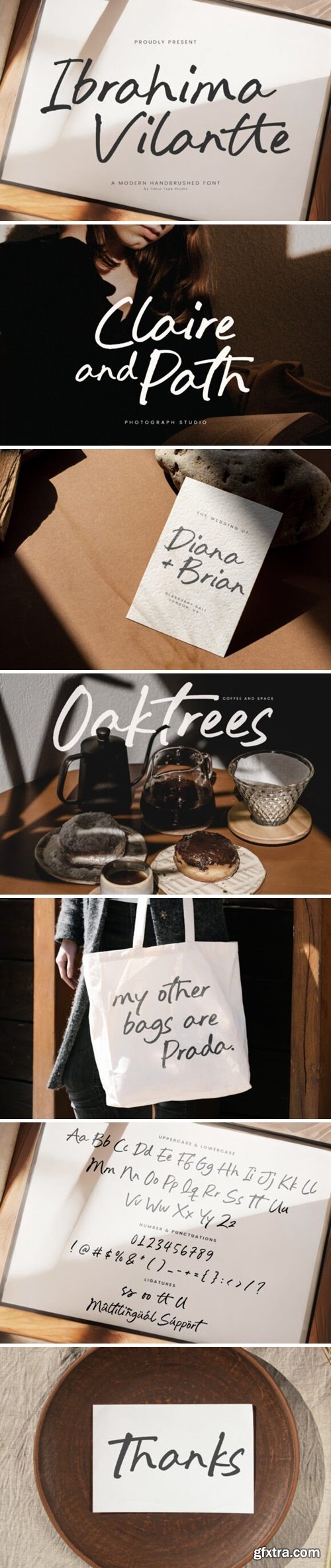
Ibrahima Vilantte Font
Ibrahima Vilantte Font. This font is a contemporary handbrushed font that embodies elegance and fluidity. Its organic strokes and artistic flair create a warm, inviting feel, making it perfect for a range of design projects, from branding to invitations. The unique combination of casual charm and sophistication ensures that Ibrahima Vilantte stands out while maintaining readability, adding a touch of creativity to any text.
Cyber House Font
Cyber House Futuristic Display Font.The modern display font feels beautiful classy, elegant, and stylish. This font is ideally suited for a wide variety of projects, such as signature, stationery, logo, wedding, typography quotes, magazine or book covers, website headers, branding, and more. Also, fashion-related branding or editorial design displays both masculine and feminine qualities.
Victorian Font
Victorian is a bold and assertive slab serif font. No matter the topic, this font will be an incredible asset to your fonts' library, as it has the potential to elevate any creation.
Monumental Font
Monumental is a lovely and timeless font. It is the best choice for creating eye catching logos, branding and quotes. Every letter has a unique and beautiful touch, which will make your design come alive!
Jailand Font
Jailand is a beautiful signature font for a variety of designs. Jailand can be used for products such as handcraft, product packaging, quotes, product design, craftsmen, lanels, photography, watermarks, logos & branding. Everything can be accessed using software that supports Opentype, such as Adobe Indesign, Adobe CS IIustrator, Adobe Photoshop CC, and Corel Draw.
Romania Font
Romania is an elegant and bold serif font. Fall in love with its incredibly versatile style and use it to create gorgeous wedding invitations, beautiful stationary art, eye-catching social media posts, and much more!
Arunica Classy Serif Font
Autumn Reason - Summer & Tropical Font JNDW6E4